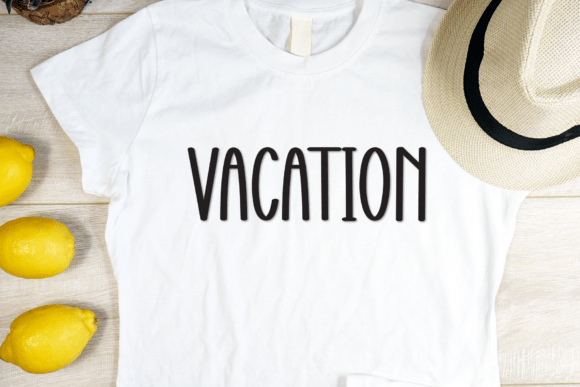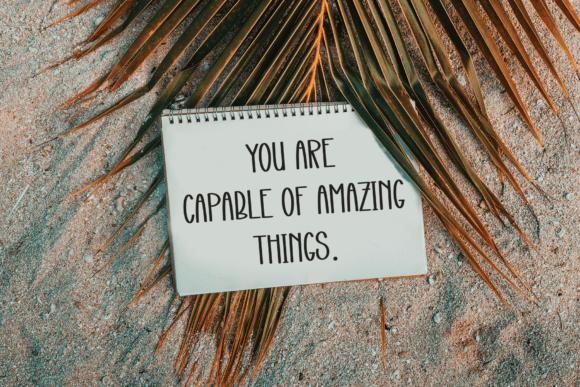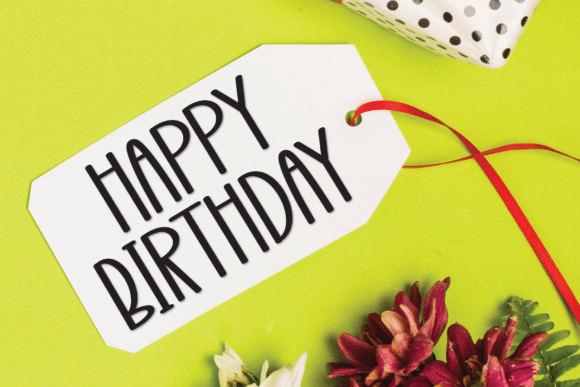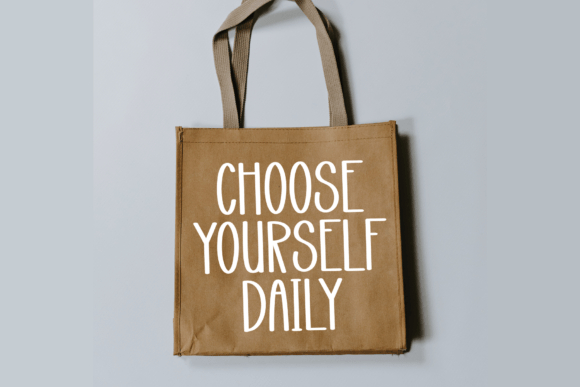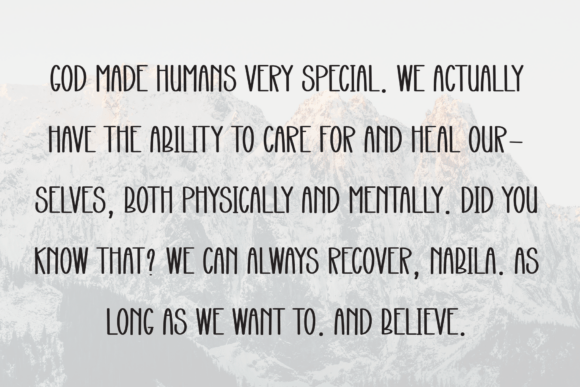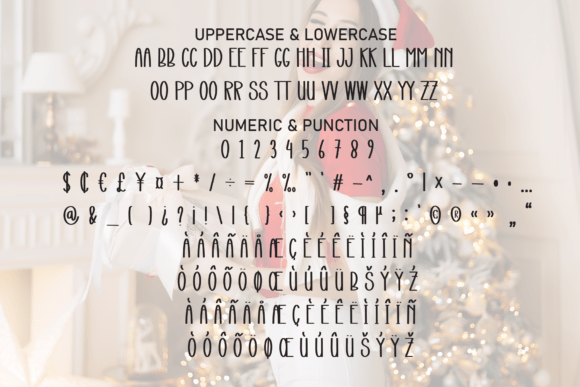
Christmas Beauty Font: Elevate Your Holiday Celebrations with Modern Elegance
The holiday season is upon us, and with it comes the joy of decorating, gift-giving, and merriment. For designers, crafters, and festive enthusiasts, finding the perfect font to capture the essence of Christmas is essential. Introducing Christmas Beauty, a stunning display font that embodies the spirit of modern holiday celebrations. This tall and slender typeface is designed to bring a touch of effortless charm to your festive branding, invitations, social media graphics, and home decor.
A Fresh Take on Traditional Festive Fonts
Christmas Beauty boasts a modern style that sets it apart from traditional festive scripts. Its clean, hand-drawn lines and elongated letterforms create a fresh, contemporary look that’s perfect for those seeking a unique and stylish way to express their holiday cheer. This font’s playful yet structured silhouette makes it an excellent choice for a wide range of applications, from beauty branding to cozy home decor.
Perfect for Festive Beauty Branding
For beauty brands looking to create a festive presence, Christmas Beauty is the ideal font. Its elegant and refined appearance makes it perfect for packaging, advertisements, and social media graphics. The font’s slender lines and modern aesthetic ensure that your brand stands out in a crowded market, while its festive charm captures the spirit of the holiday season.
Elevate Your Holiday Party Invitations
Christmas Beauty is also an excellent choice for holiday party invitations. Whether you’re planning a corporate event, a family gathering, or a festive soiree, this font adds a touch of sophistication and whimsy to your invites. Its modern style ensures that your invitations look contemporary and stylish, while its festive charm sets the tone for a joyful celebration.
Seasonal Social Media Graphics
Make your social media graphics shine this holiday season with Christmas Beauty. The font’s clean lines and elegant appearance make it perfect for creating eye-catching graphics that capture the essence of the season. From Facebook posts to Instagram stories, Christmas Beauty adds a touch of festive flair to your social media presence.
Cozy Home Decor Inspiration
Christmas Beauty is not just limited to digital applications; it’s also perfect for cozy home decor. Use the font to create beautiful holiday signs, decorate your Christmas tree, or add a personal touch to your holiday gifts. The font’s modern style and festive charm make it an excellent addition to any holiday decor.
Key Features of Christmas Beauty Font
- Tall and slender display font: Perfect for headlines, titles, and short texts.
- Clean, hand-drawn lines: Give your text a personal and elegant touch.
- Elongated letterforms: Create a fresh, contemporary look that’s perfect for modern holiday celebrations.
- Playful yet structured silhouette: Adds a touch of whimsy and sophistication to your text.
- Multilingual support: Perfect for global brands and celebrations.
Get Ready to Capture the Joy of the Season